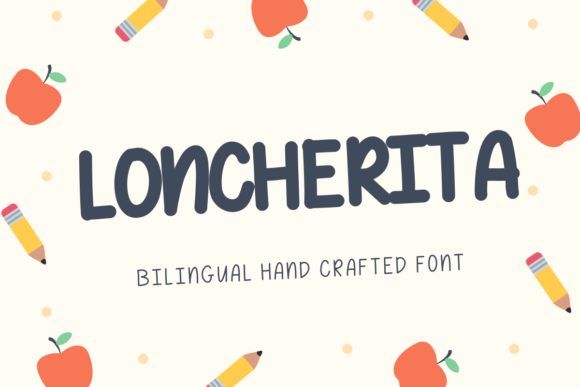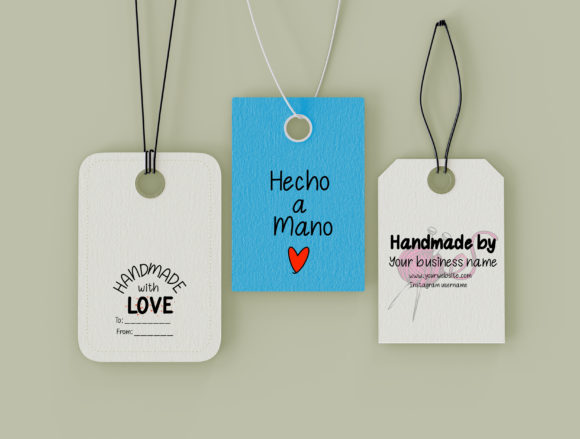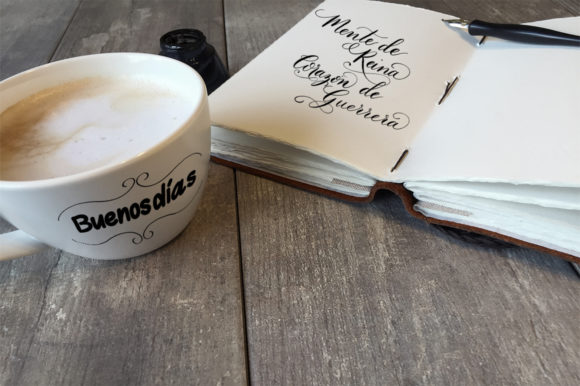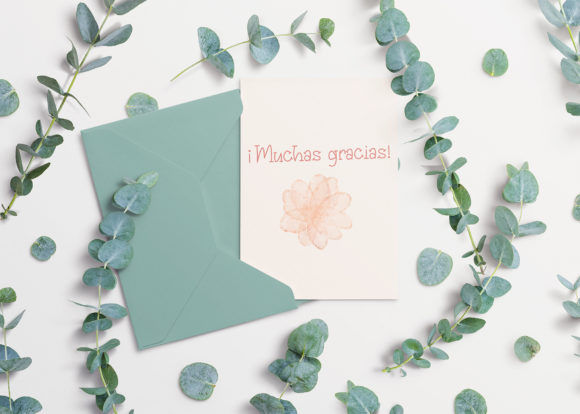
About Loncherita Font
Loncherita is a sweet and quirky handwritten font. It embodies authenticity and joy and it will brighten up each of your children or school themed designs.